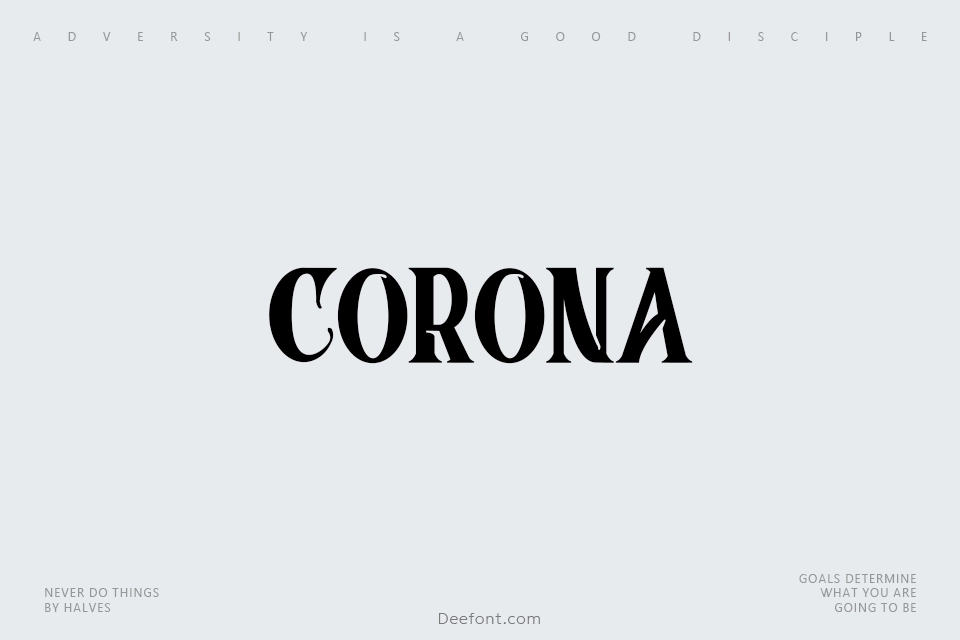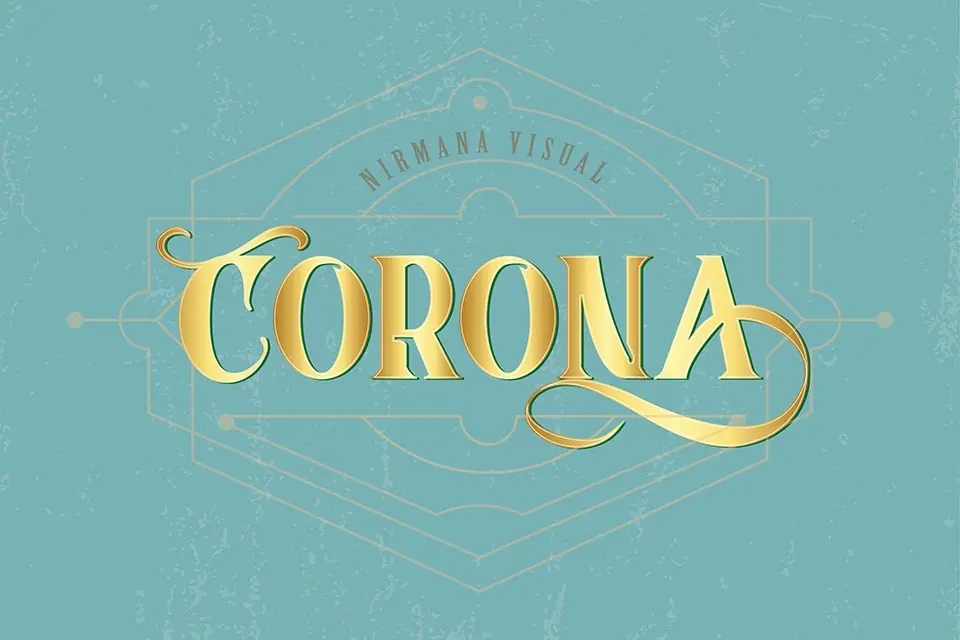
Corona Font
Corona is a distinctive retro display font created by Nirmana Visual, featuring bold, distinctive letterforms with a charming vintage aesthetic. Perfect for posters, headlines, and creative projects, this font combines classic typography sensibilities with contemporary design appeal, delivering striking visual impact through its refined freeform serif characteristics and semi-condensed proportions.